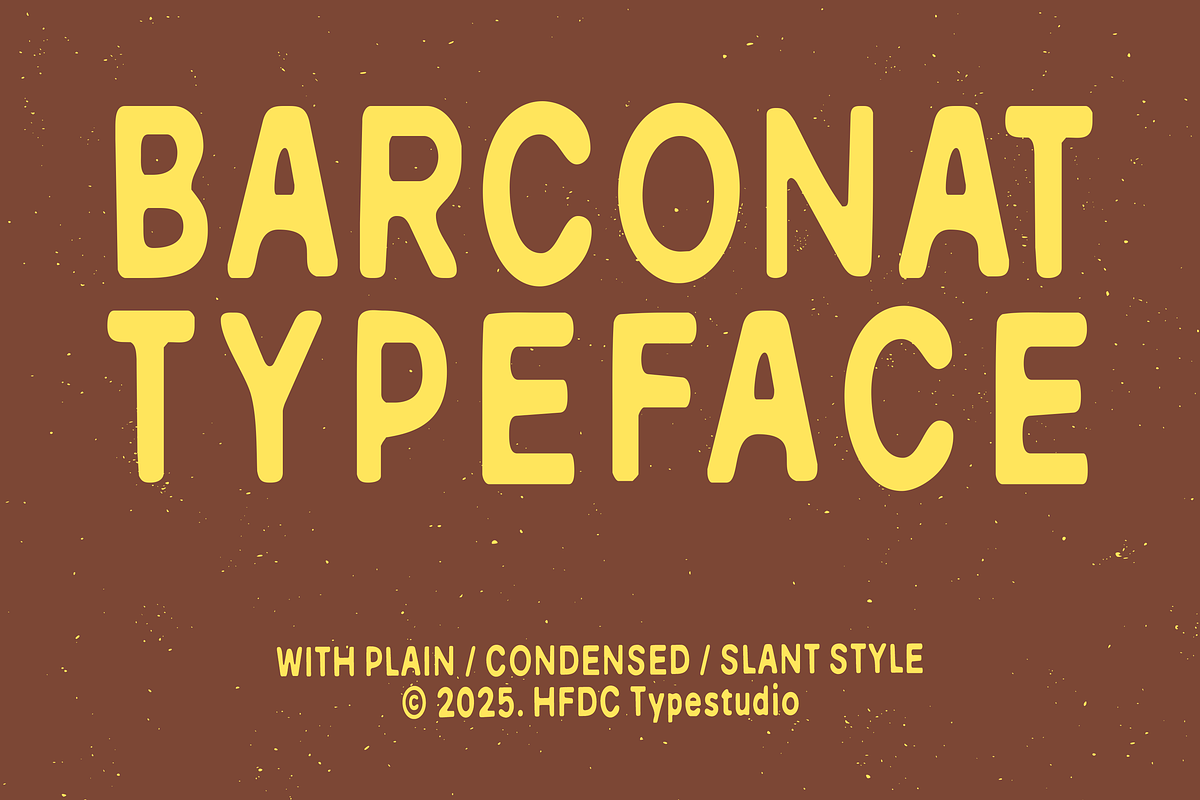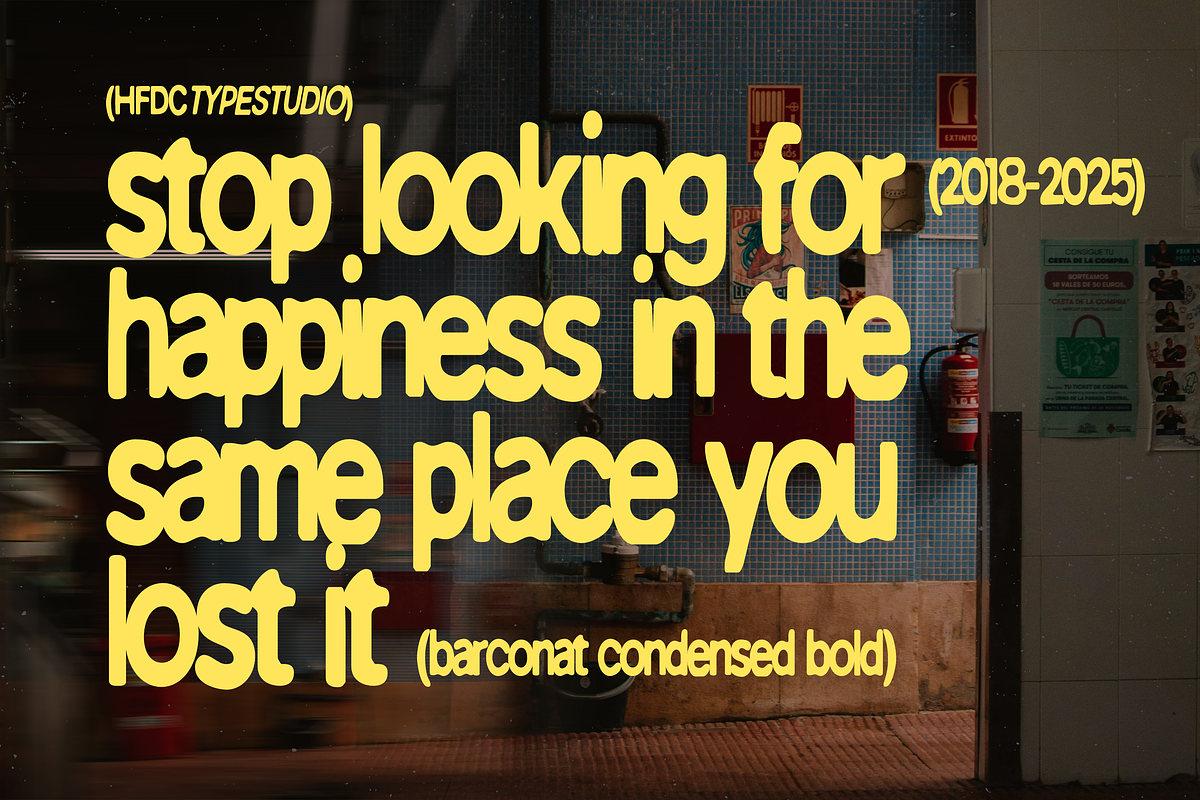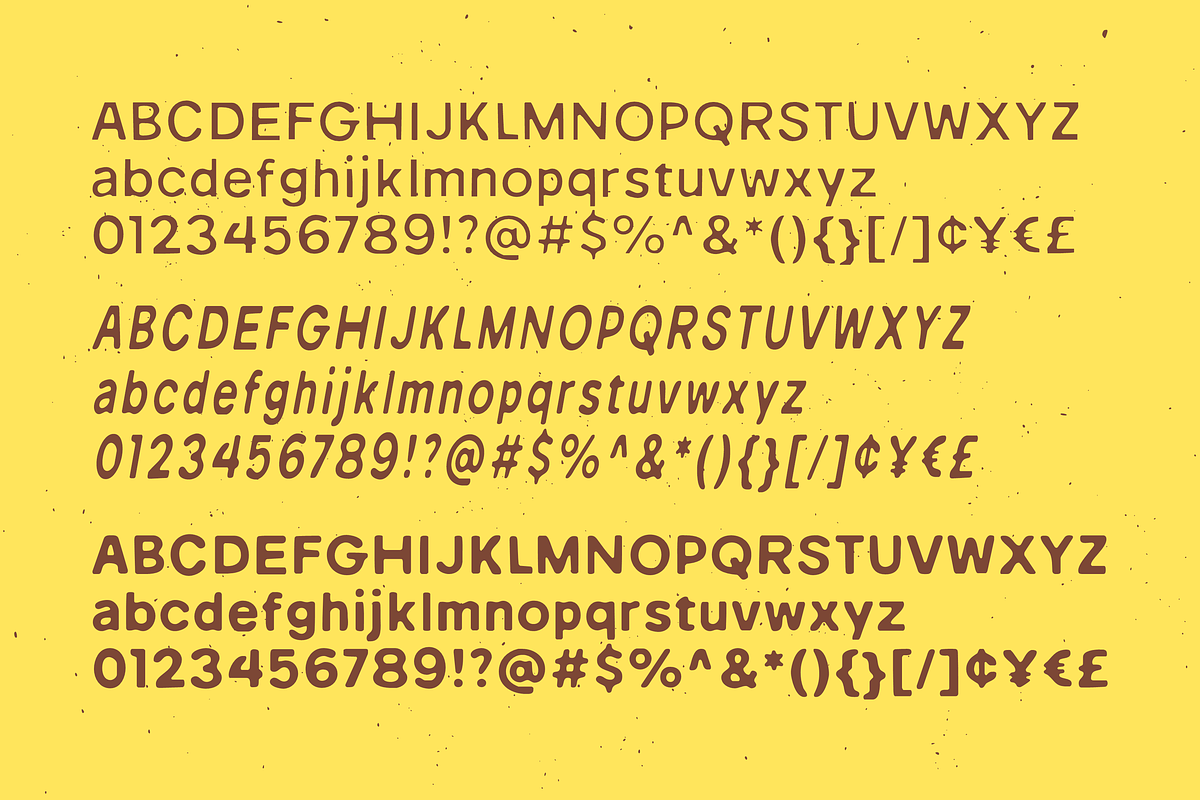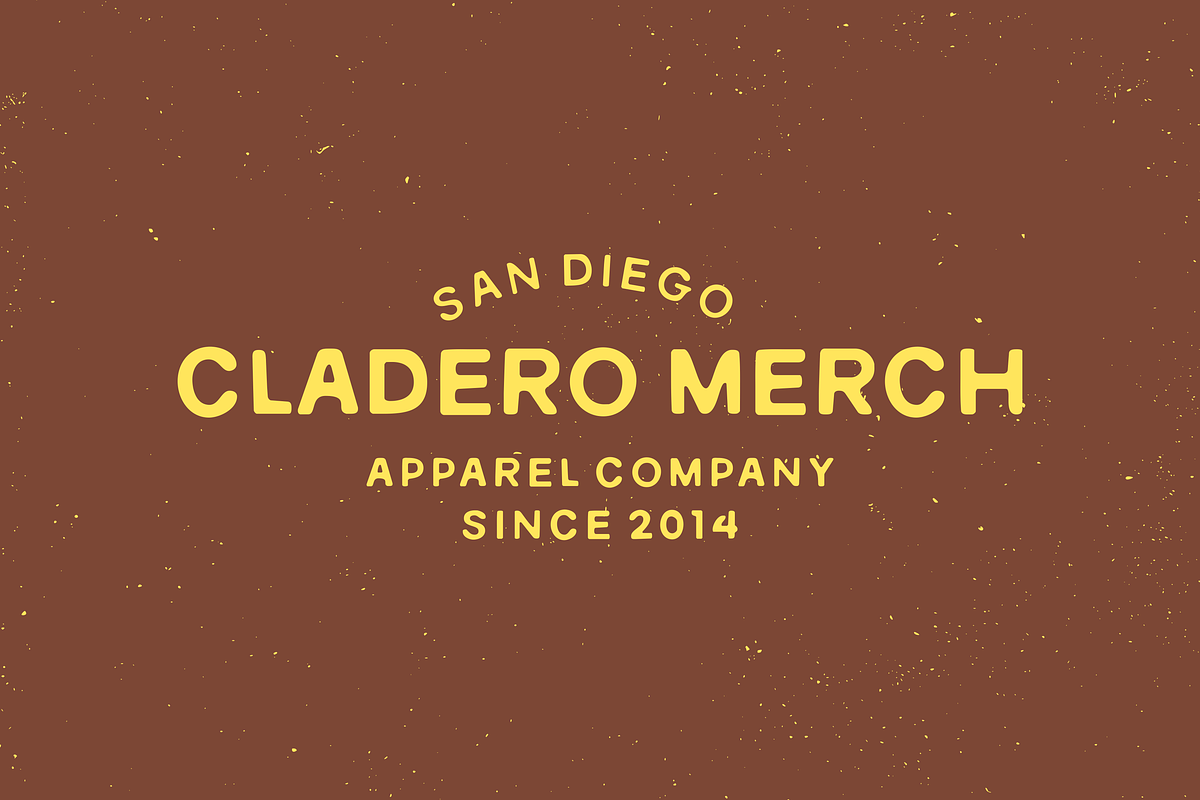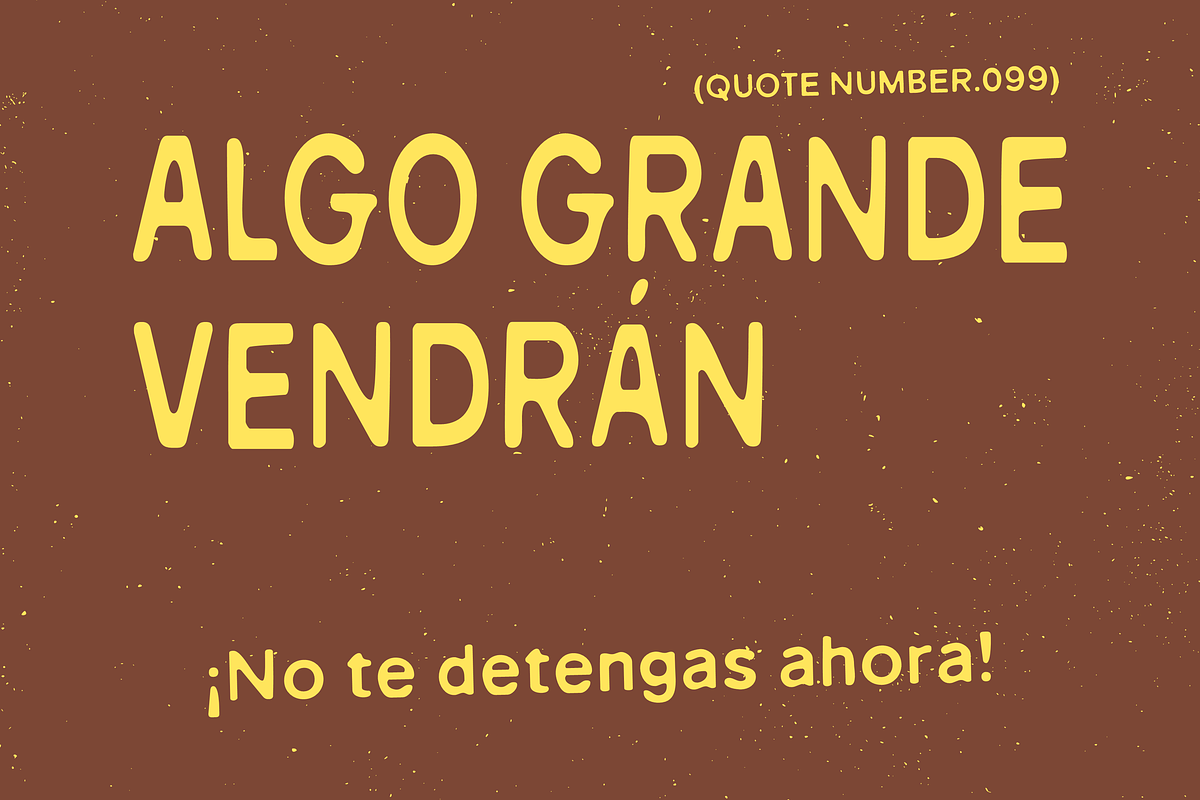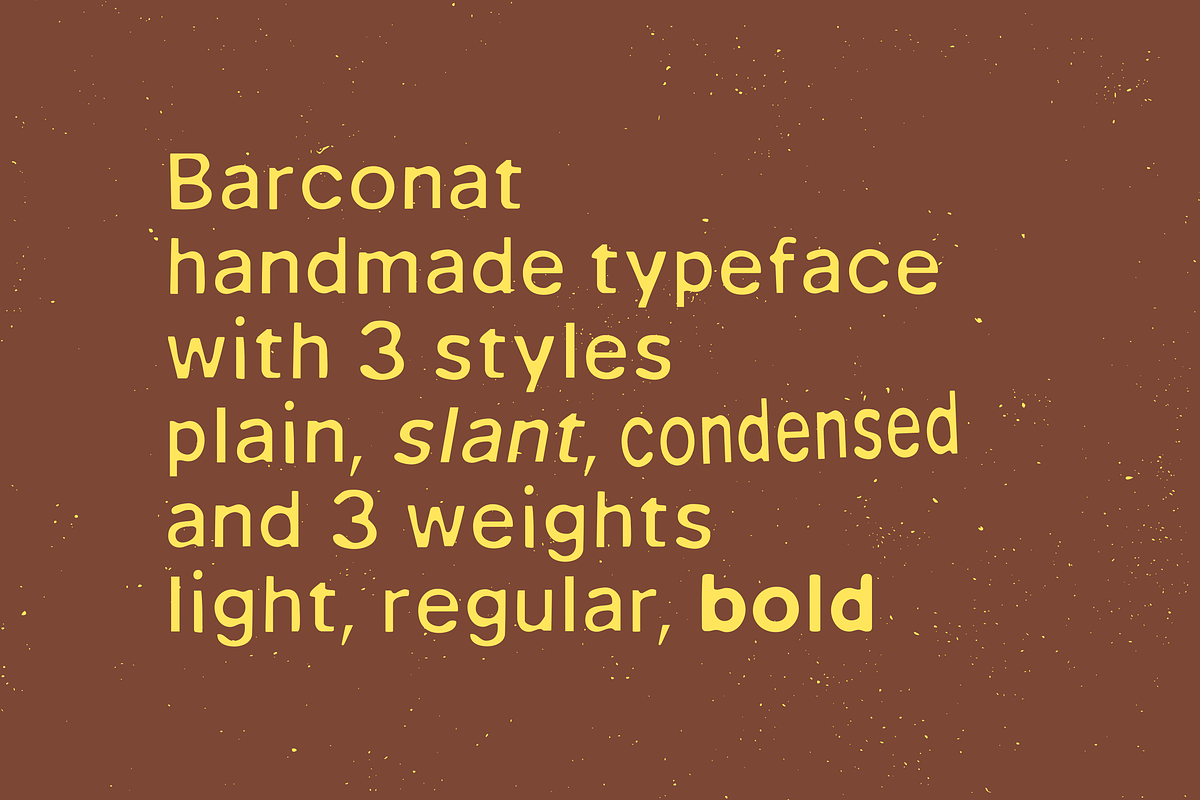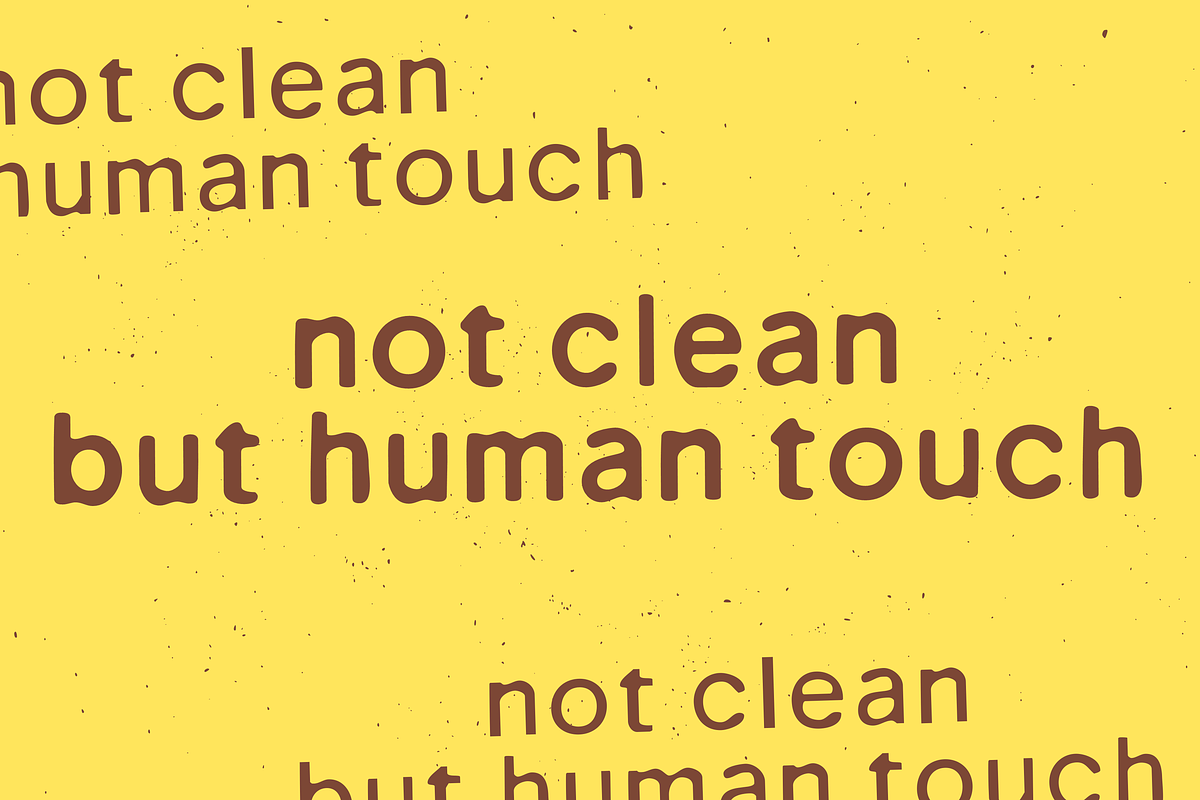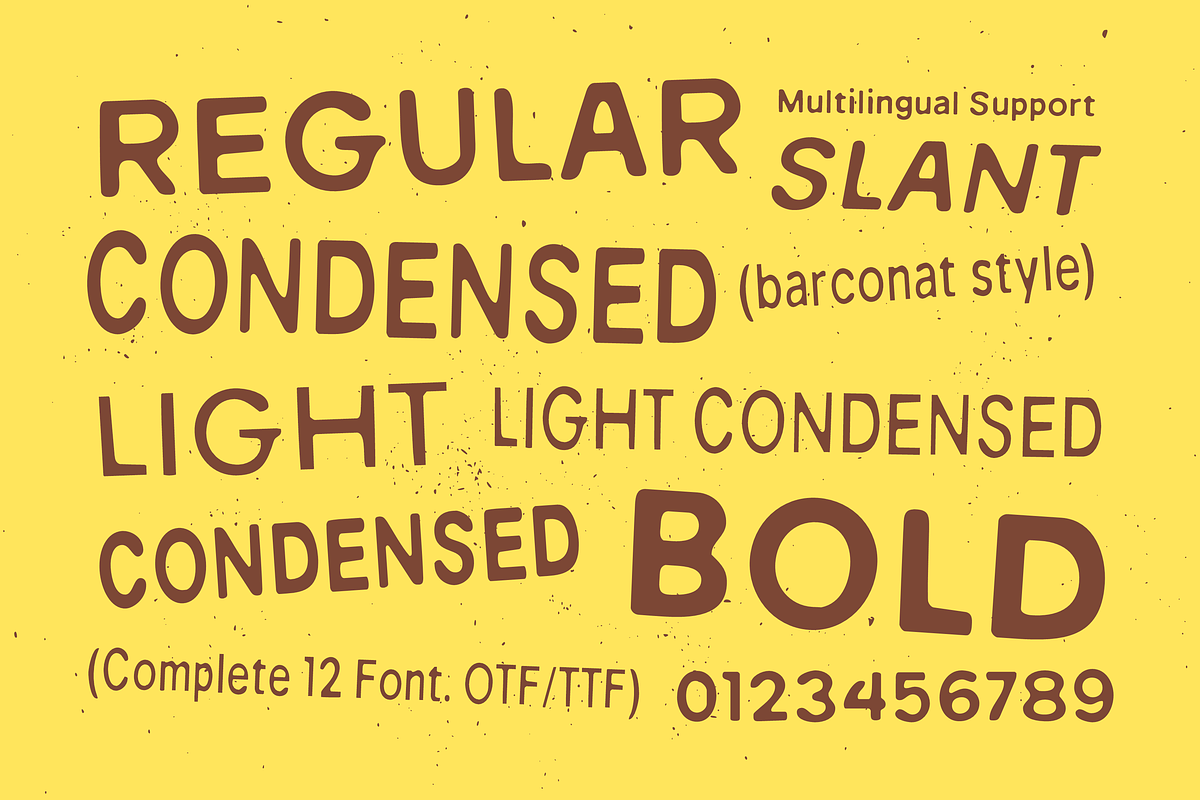
Barconat Rough Sans Serif
Introducing Barconat Rough Sans Serif, a versatile font that effortlessly combines a vintage charm with a modern twist. This condensed sans serif typeface features a unique blend of rough textures and smooth edges, making it an ideal choice for various design projects. Whether you’re crafting a logo, packaging, or branding materials, Barconat Rough brings a soft yet distinct personality to your text. Its rounded forms and bold italic options provide a captivating visual appeal, while the light style offers a gentle touch for delicate designs.
With a comprehensive glyph set of over 200 characters, Barconat Rough is perfect for multilingual projects, ensuring your message resonates across different languages and cultures. Available in TTF, OTF, WOFF, and WOFF2 formats, this font seamlessly integrates into any creative workflow. Elevate your next design with a typeface that embodies a playful yet professional vibe, making it suitable for everything from artisanal product labels to modern websites. Choose Barconat Rough Sans Serif to add a distinctive flair that captures attention and communicates effectively.